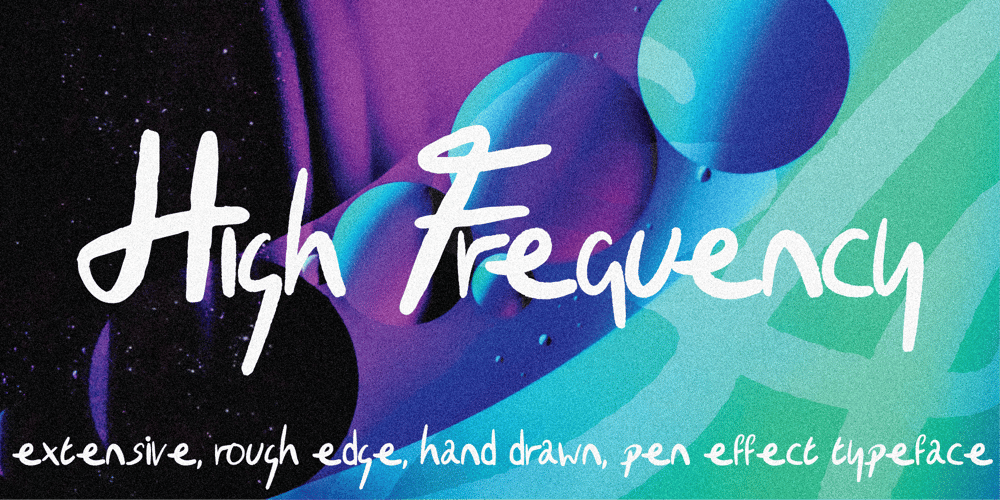
High Frequency Script Font Family was designed by Toby Bennett and published by Salty Sweet Creative. High Frequency Script contains 1 styles and family package options. High Frequency Script is a creative flowing hand drawn typeface with a beautiful style and lovely realistic feel.